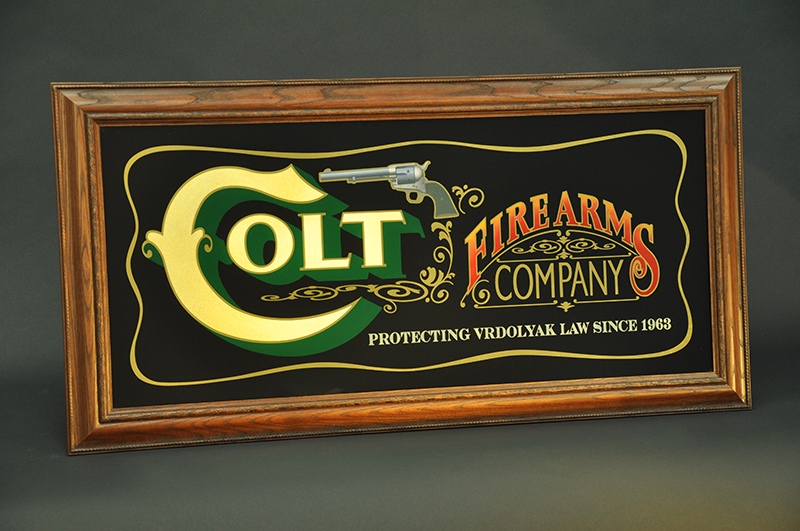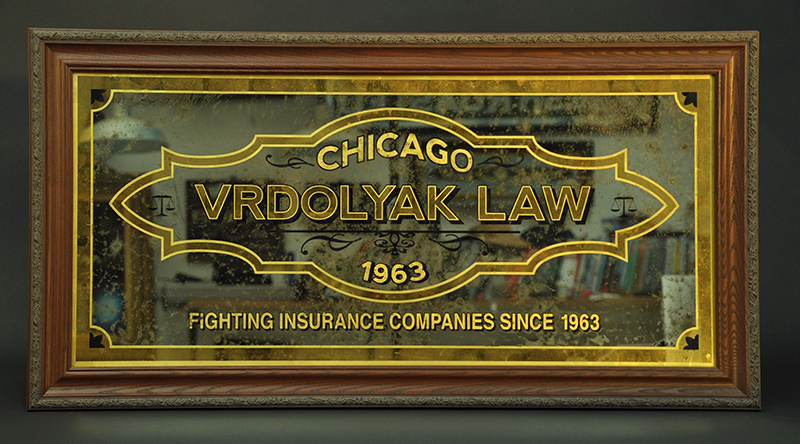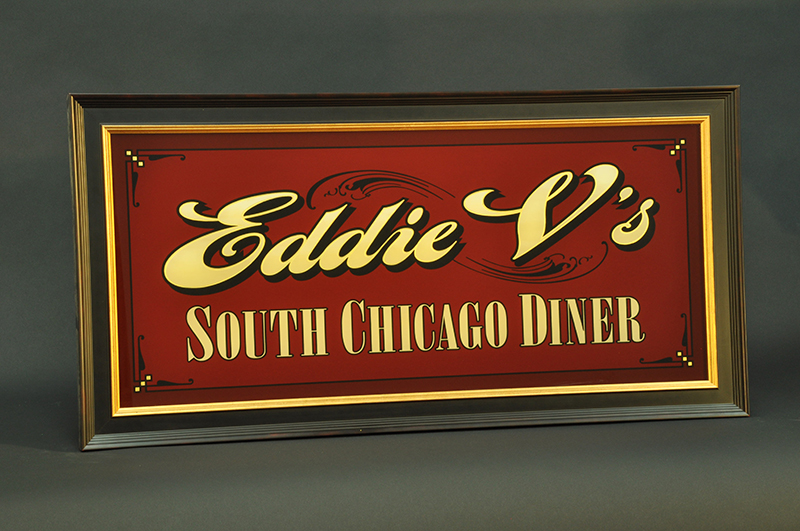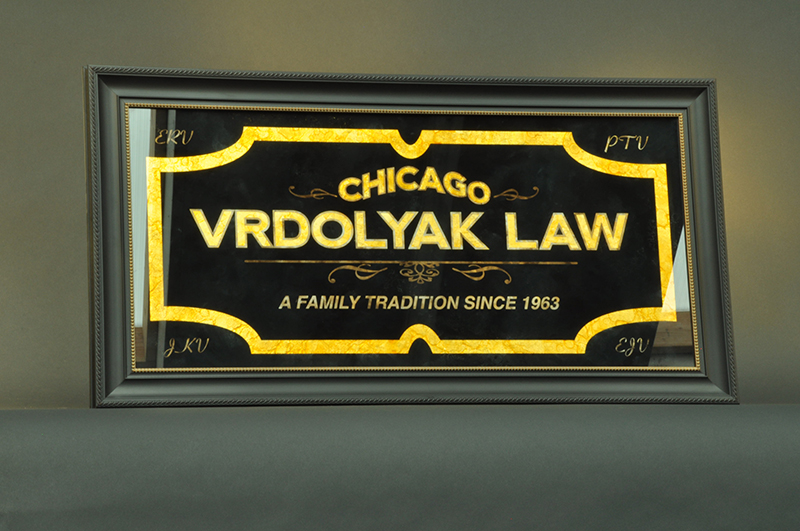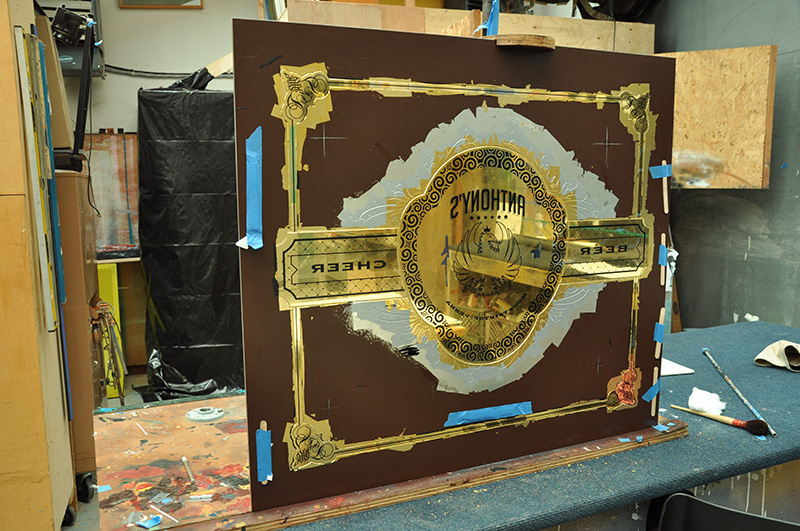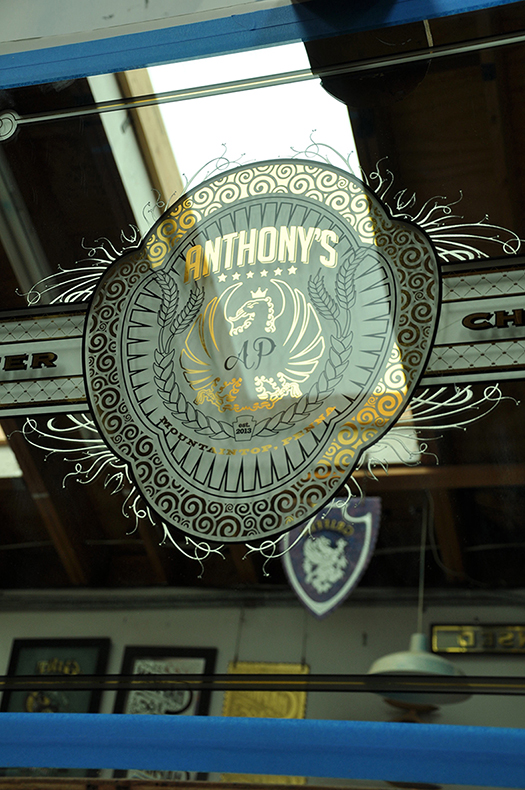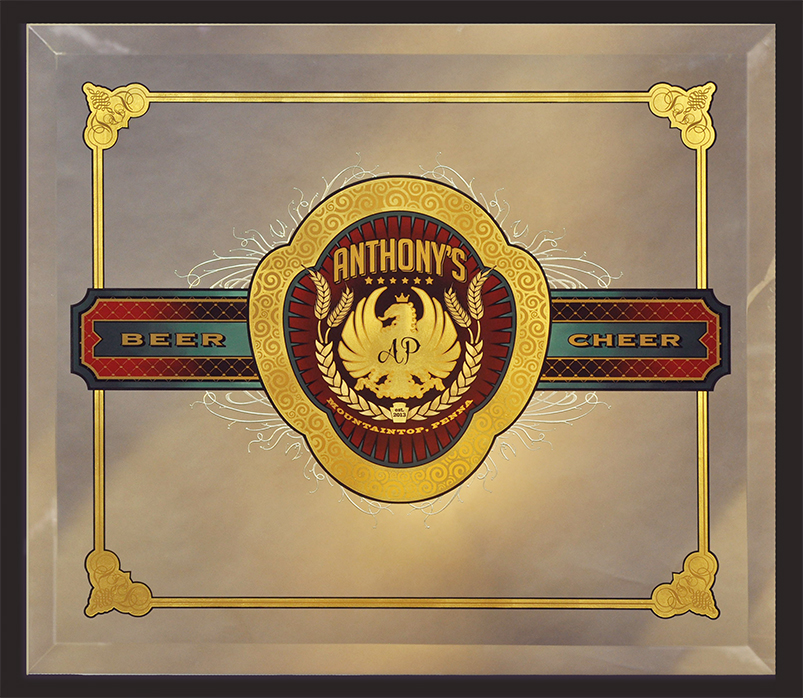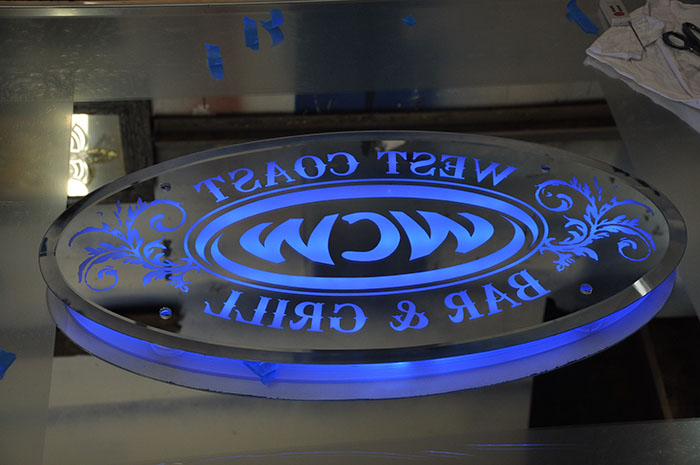
Latest glass signs
Just finished up the last of four glass signs for one client. Got them all photographed and ready to ship.
Rod, as always very nice work. I must say that I'm partial to the last one.
The third piece... the boarders are they Antique Angel Gilded or some other effect?
The border is two toned antique water gilding with 23.5kt gold.I use dirty brown water size with soap in it to create bubbles in the size. Thanks Ron. The last one is a copy of one I did awhile back.
I like the effect.
So I know your not talking about mud puddle or ditch water... so what is this dirty water concoction you speak of?
I like the effect.
So I know your not talking about mud puddle or ditch water... so what is this dirty water concoction you speak of?
I like to make a water size that looks dirty brown by using watercolor pigments and dish soap. The dish soap traditionally is used when water gilding over paint or clear varnish when doing two tone gilding. I do my antique gilding with the glass laying down flat. I wash the size on and give it a slap with the size brush to make soap bubbles. Then I lay my gold on. The bubbles help keep the gold from laying down so when it dries those areas become antique spots.
Here is the front of the piece I'm working on right now.
Was wondering what it looked like from the front... looking forward to seeing the completed piece.
The outside spark line scrolling was that sandblast as it looks like it had some depth from the back side. Also when you remove the paint and silver what products are you using?
I tried some gel stripper I had on hand and the backing pant just laugh at it... maybe it's just went bad but if I'm going to buy something I'd rather know it'll work.
Was wondering what it looked like from the front... looking forward to seeing the completed piece.
The outside spark line scrolling was that sandblast as it looks like it had some depth from the back side. Also when you remove the paint and silver what products are you using?
I tried some gel stripper I had on hand and the backing pant just laugh at it... maybe it's just went bad but if I'm going to buy something I'd rather know it'll work.
Yes the outside scrolling was depth carved then sealed with frog juice to bring back the clear. Then it was water gilded with 12K gold and backed with silver Oneshot.
I am told almost any paint stripper will work but I use a aerospace epoxy paint stripper that takes the backing paint off in a few minutes.
The silver is removed with Silver strip. I only know it as cat piss.
I am told almost any paint stripper will work but I use a aerospace epoxy paint stripper that takes the backing paint off in a few minutes.
The silver is removed with Silver strip. I only know it as cat piss.
Here is a photo of the mirror all finished.
Nice work as usual, Roderick.
I hope I haven't already post these posts but here go's. This is the first LED back lite etched bar mirror I've done. The challenge was to line up all the layiers so the stand off wholes matched.
Also, going back up the thread I noticed something 'Strange', to my eye anyway, on the Vardolyak Law sign (Fighting Insurance Companies..). Why the lower case 'i'?
Ron I don't believe it is a lower case i. To me looks like it's a bits of his dirty water soap bubble sizing magic that is shading a capital I.